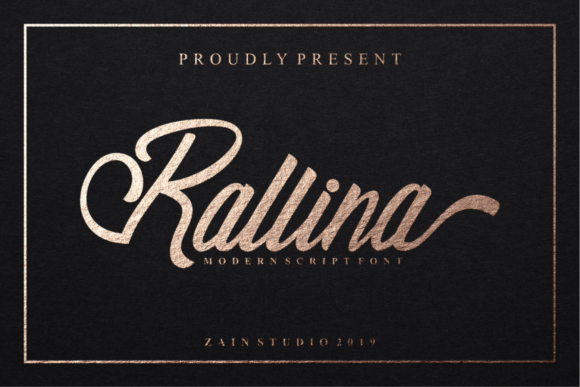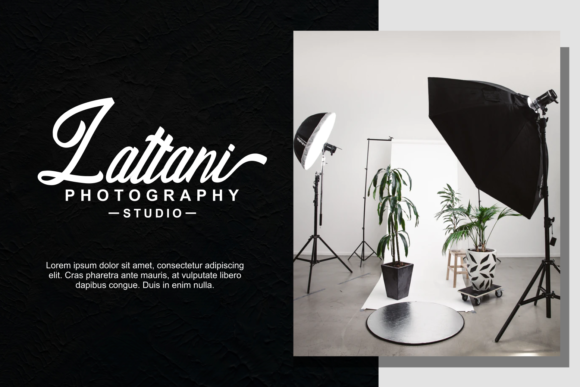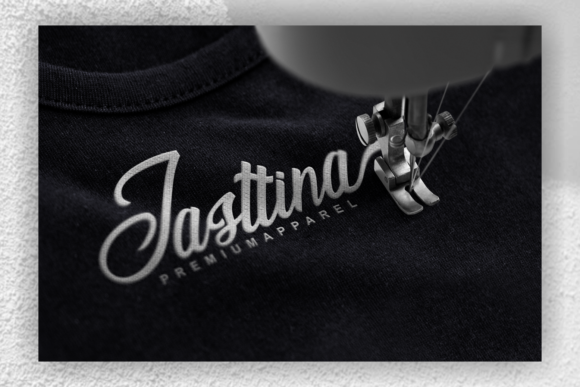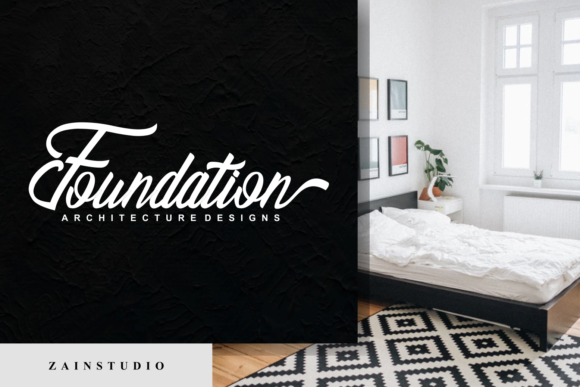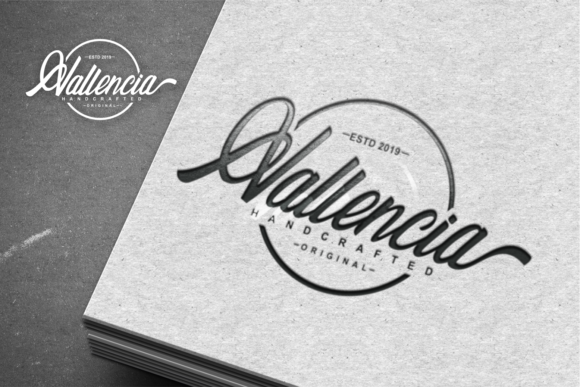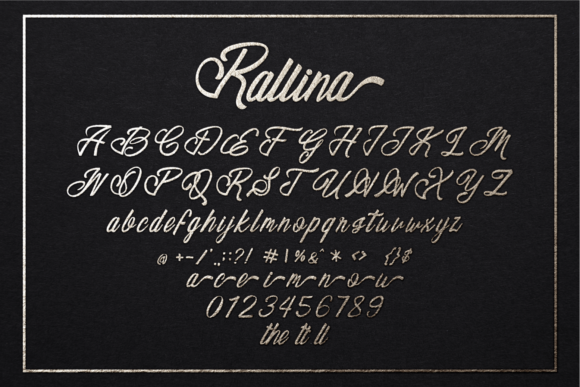
Rallina Font
About Rallina Font
Rallina is a gorgeous script font that will turn any design idea into a true standout. Fall in love with its romantic charm!